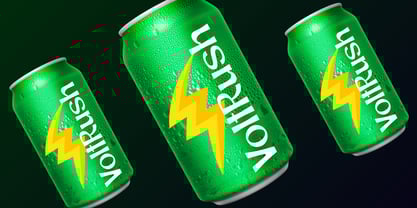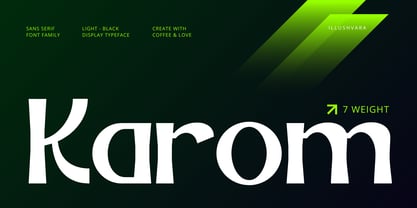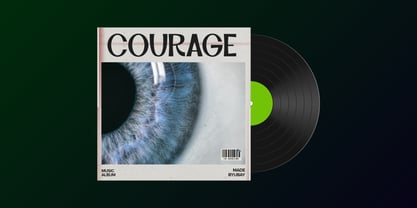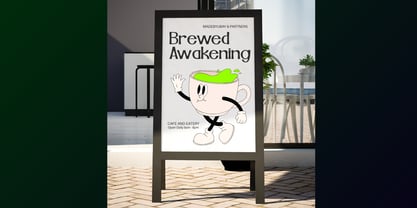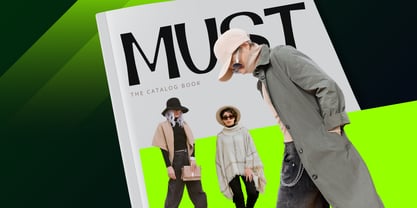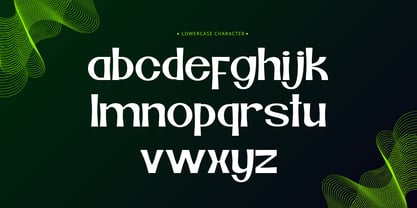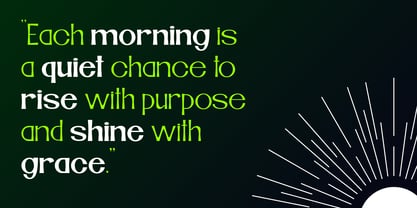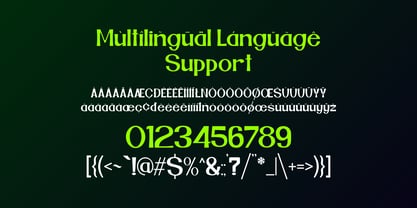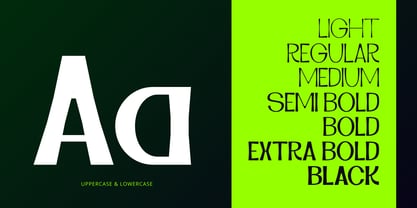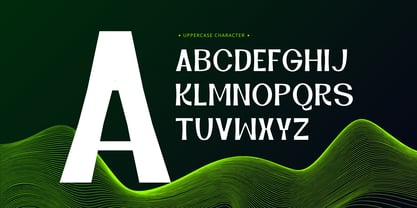
Karom Display
by Illushvara
Karom Display is a modern sans serif font crafted for high-impact branding and standout logos. With 7 distinct weights from Light to Black, it offers versatility for bold headlines or refined wordmarks. Clean lines and geometric balance give Karom Display a professional yet creative edge, making it ideal for contemporary brands seeking a strong visual identity. Its clarity and flexibility ensure standout performance across print and digital platforms.
Karom Display